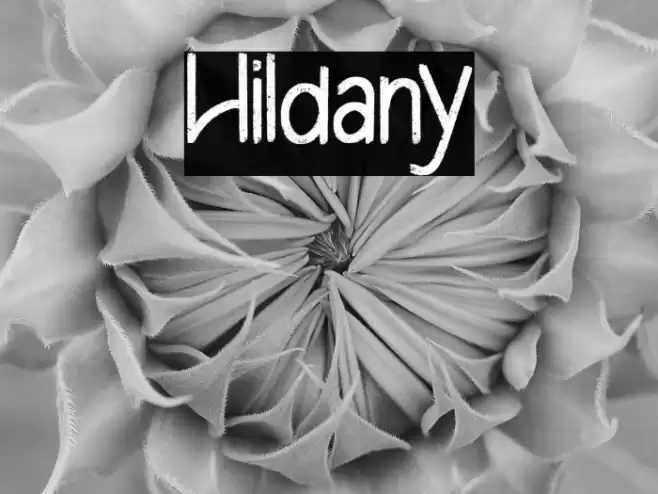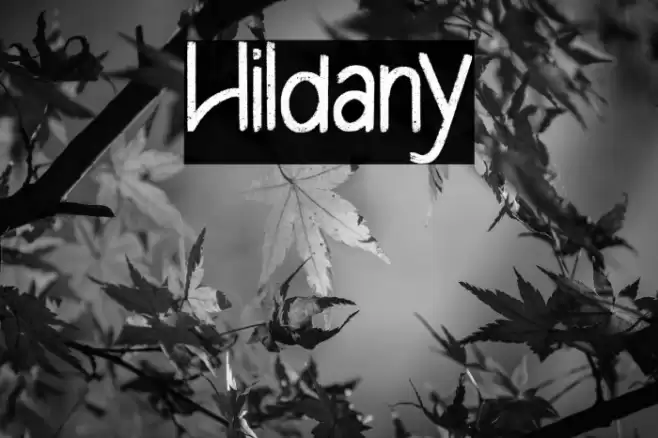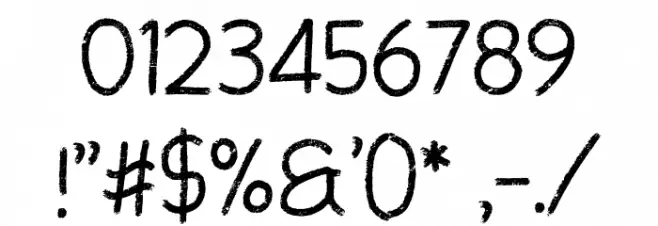
Hildany Font
Hildany Description
This font features a playful and artistic style with a hand-drawn appearance. The letters have a slightly uneven baseline, adding to its casual and informal charm. The strokes are bold and consistent, giving the font a strong presence. The uppercase letters are tall and slightly condensed, while the lowercase letters maintain a more rounded and open form. The numbers and special characters follow the same playful aesthetic, making this font suitable for creative and fun projects.
A playful, hand-drawn font with bold strokes and a casual style from Regular fonts.
- Font: Hildany
- Proposed Projects: Ideal for children's books, playful branding, greeting cards, and creative posters.